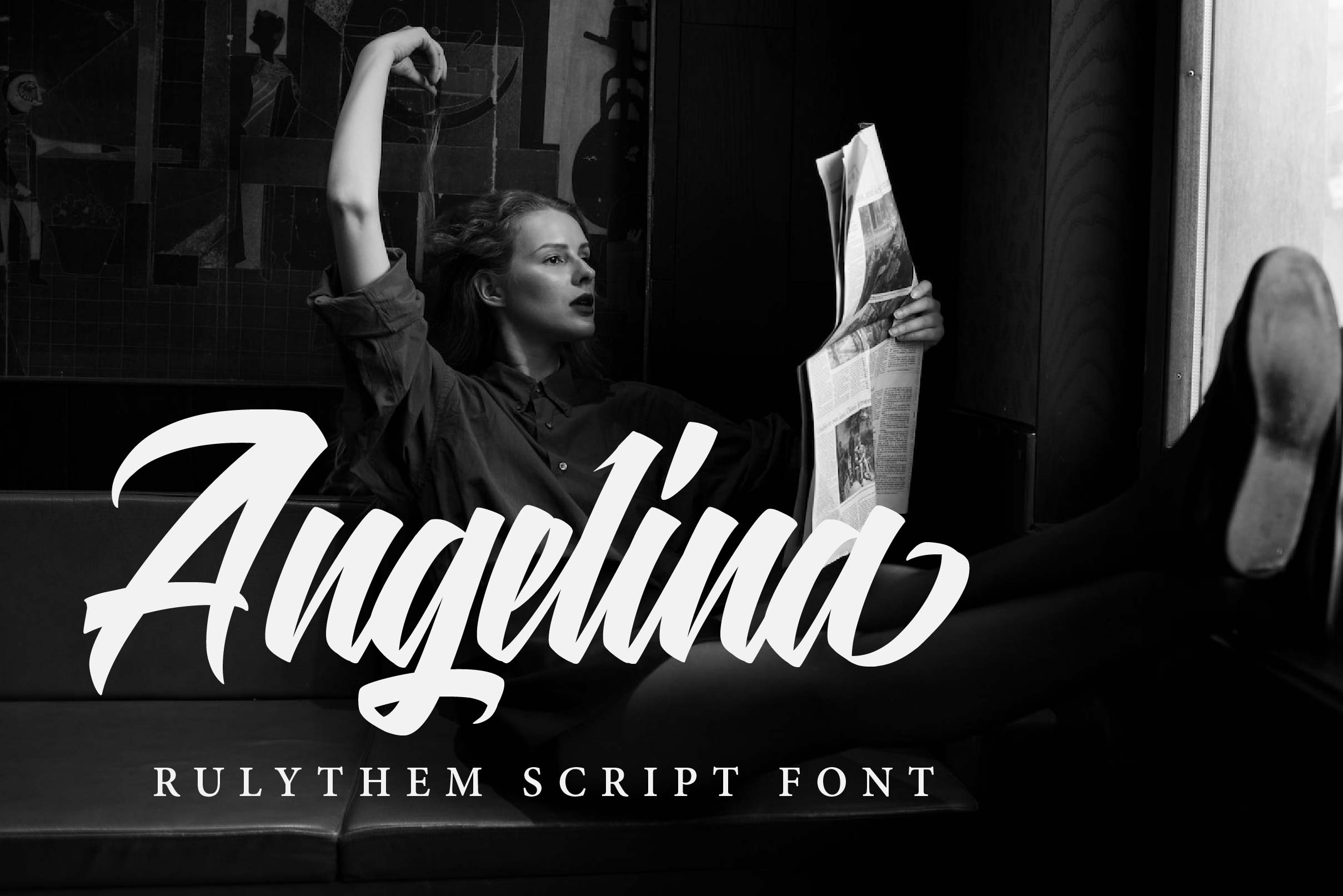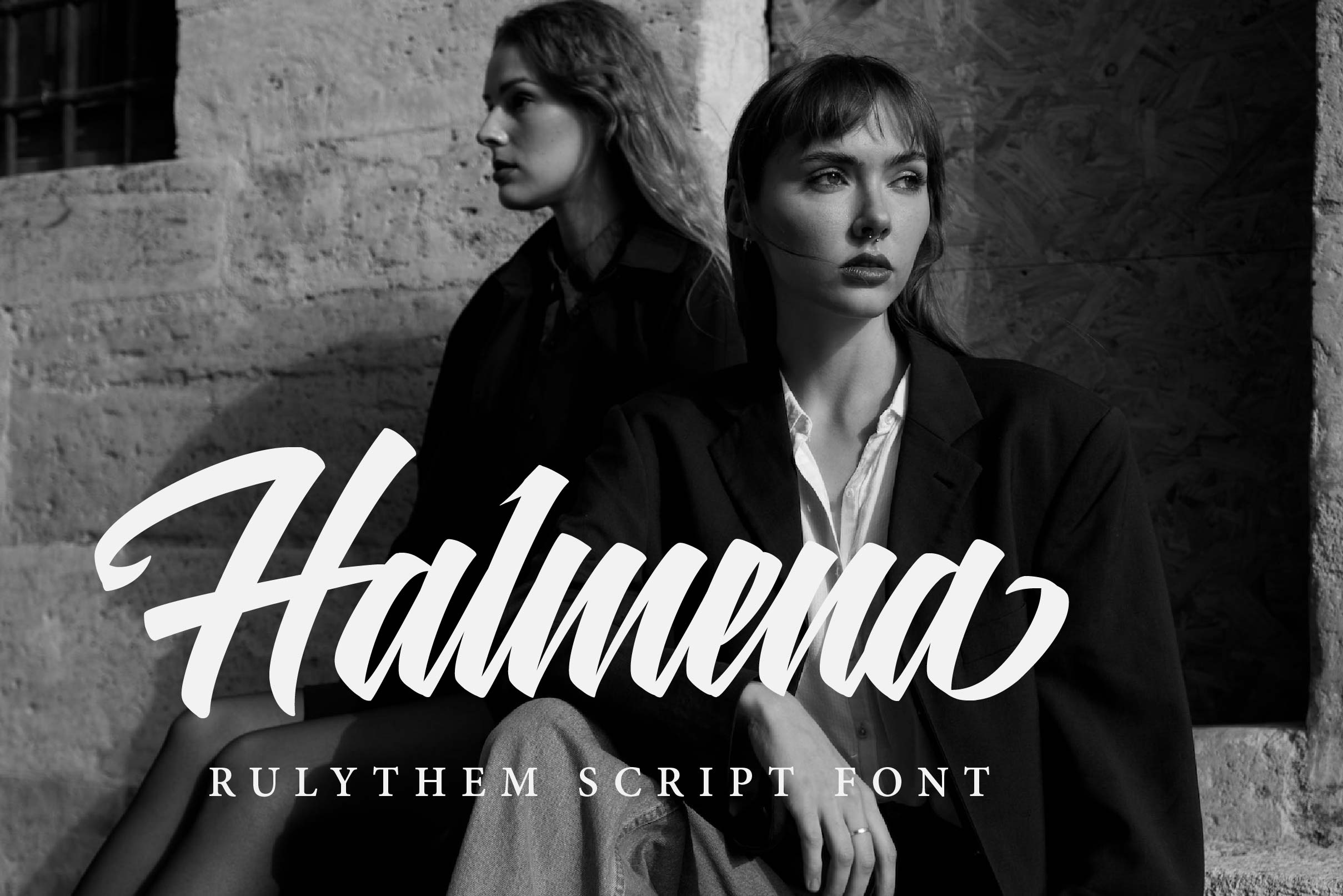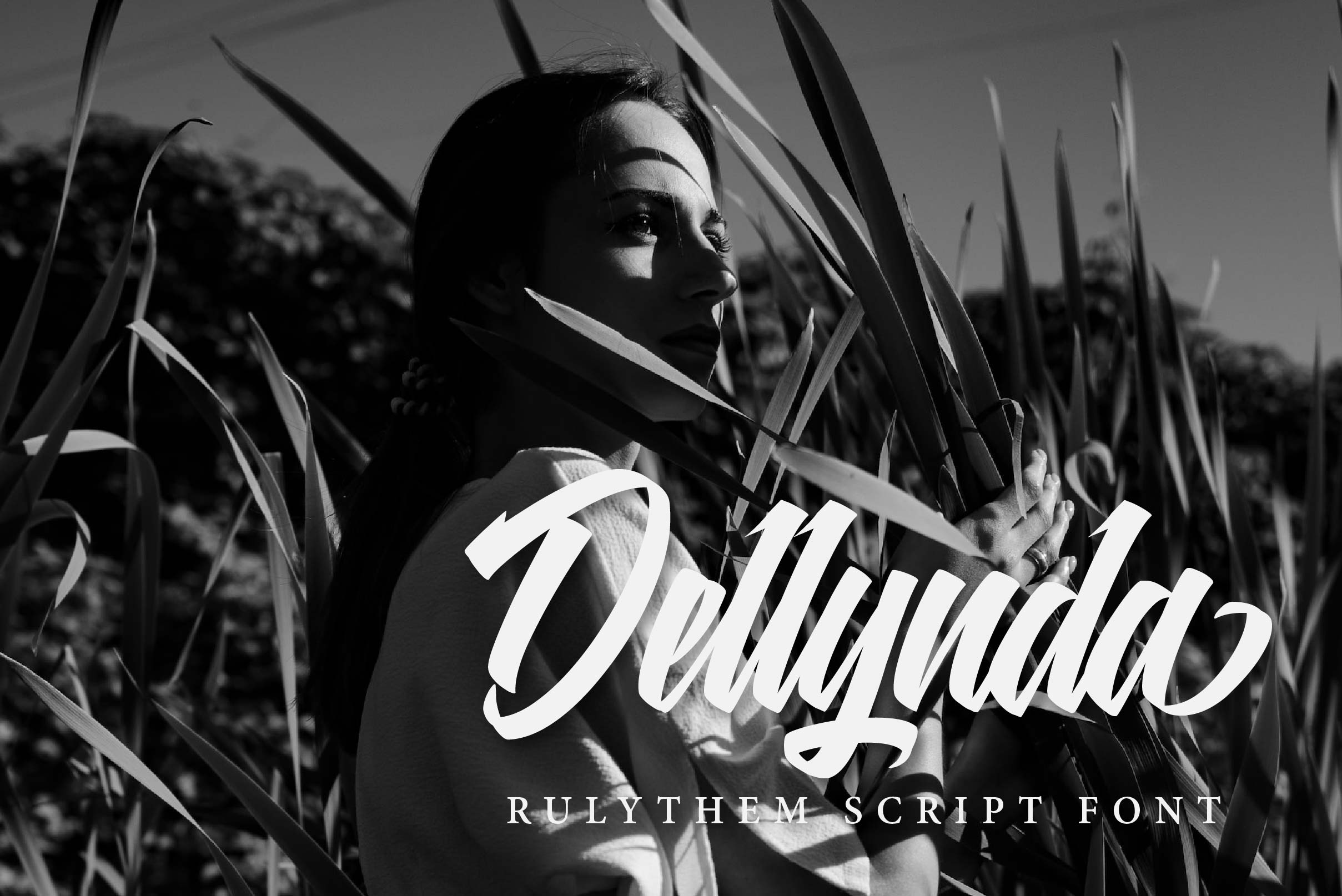
Rulythem Font
Rulythem Script Font is a delicate, elegant and flowing handwritten font. It has beautiful and well balanced characters and as a result, it matches a wide pool of designs. Add it to your most creative ideas and notice how it makes them come alive!
– Uppercase, Lowercase, Numeral & Punctuation
– Alternate Letters, Ligature & Swash/Tail